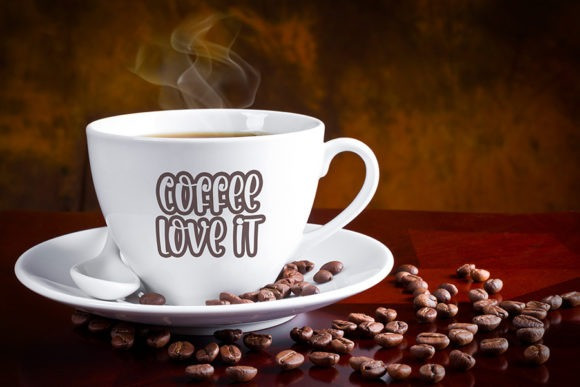
Supper Booms Font
Supper Booms Cute Font is a playful and smart-looking handwritten font. It is the best choice for creating eye-catching logos, branding, and quotes. Every letter has a unique and beautiful touch, which will make your design come alive!